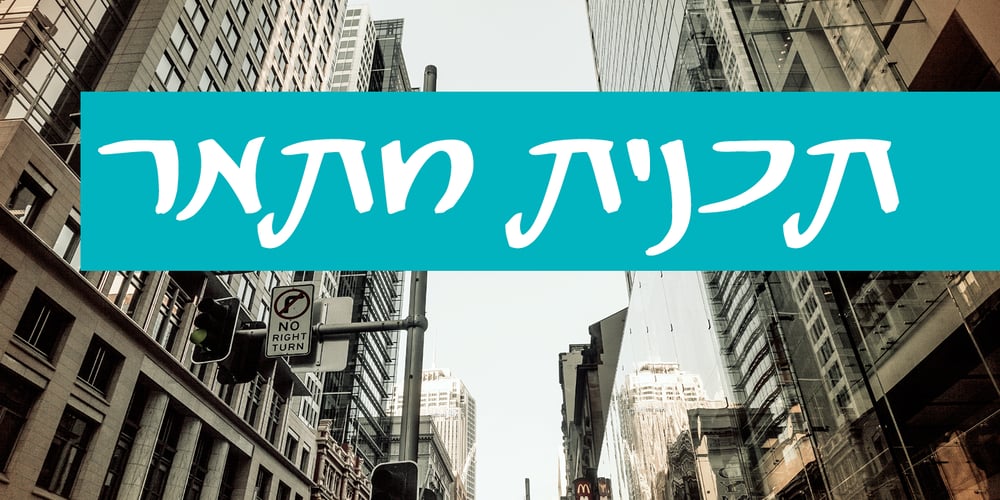
Architekt MF Font Family was designed by Jonathan Munjak and published by Masterfont. Architekt MF contains 6 styles and family package options. This elegant architect’s handwriting follows the traditional Hebrew type by intensive and free hand drawn lines.